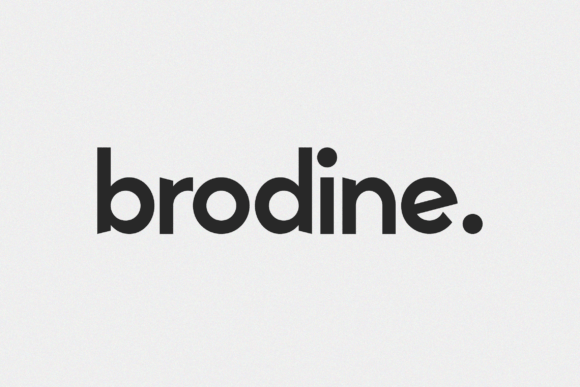
I still remember the frustration of working on a logo design project, hours spent tweaking every detail, only to be held back by one thing: the font. It was 2019, and I was working on a branding project for a new coffee shop. My client wanted a modern, sleek look that would appeal to the young and trendy. I scoured the internet for the perfect sans serif font, but nothing seemed quite right. That was until I stumbled upon Brodine Font. ✨
First Impressions: A Love Affair with Brodine
Brodine Font has been a game-changer for me. Its clean geometry, smooth curves, and bold presence make it perfect for creating strong, memorable logos and branding visuals. Here are a few things I love about Brodine:
• ✅ Versatility: Brodine is a chameleon of a font. It can be used for both digital and print projects, and it looks great in a variety of sizes.
• ✅ Legibility: The font’s clean lines and simple shapes make it easy to read, even at small sizes.
• ✅ Customization: Brodine comes with a range of OpenType features, including stylistic alternates and glyphs, which allow for endless customization options.
• ✨ Aesthetic: The font’s sleek, modern design makes it perfect for brands that want to look professional and cutting-edge.
While Brodine is an amazing font, it’s not without its quirks. Here are a few things to keep in mind:
• ⚠️ Limited italic options: Brodine’s italic options are limited, which can be a drawback for some projects.
• 🤔 Glyph compatibility: Some glyphs may not work well with certain software or platforms, so be sure to test them thoroughly.
The Story Behind Brodine
Brodine was designed by a team of typographers who wanted to create a font that was both modern and timeless. Inspired by the clean lines and simple shapes of urban architecture, Brodine is a font that’s both professional and creative. The design team spent countless hours refining the font’s geometry and curves, ensuring that it would be legible and beautiful in a variety of contexts.
Font Name Brodine Font
Author Artiveko
Q: What is Brodine Font?
A: Brodine Font is a sleek and versatile sans serif font designed for creating strong, memorable logos and branding visuals.